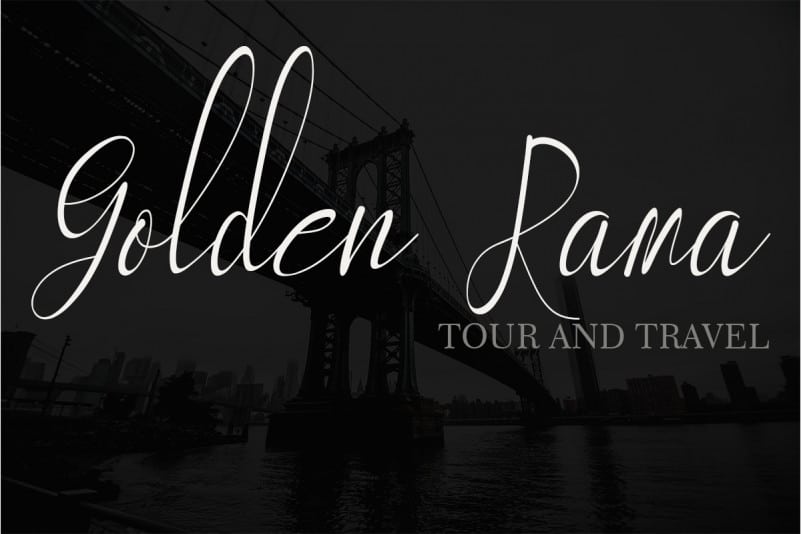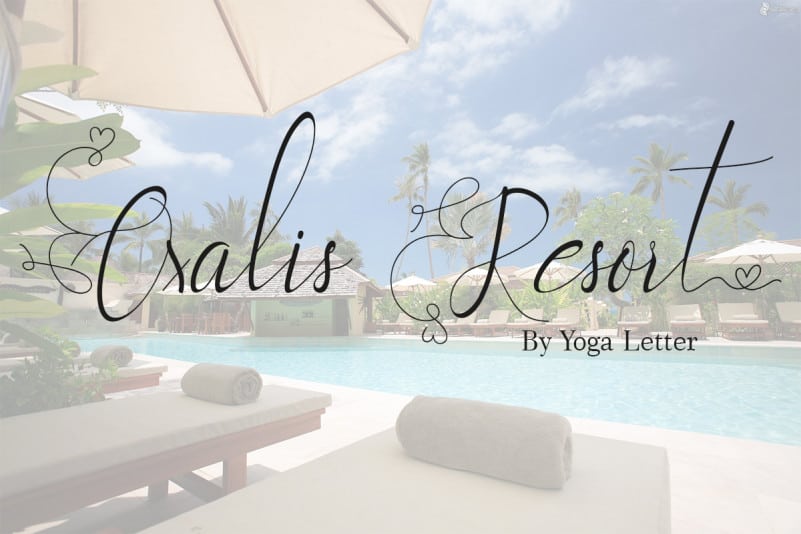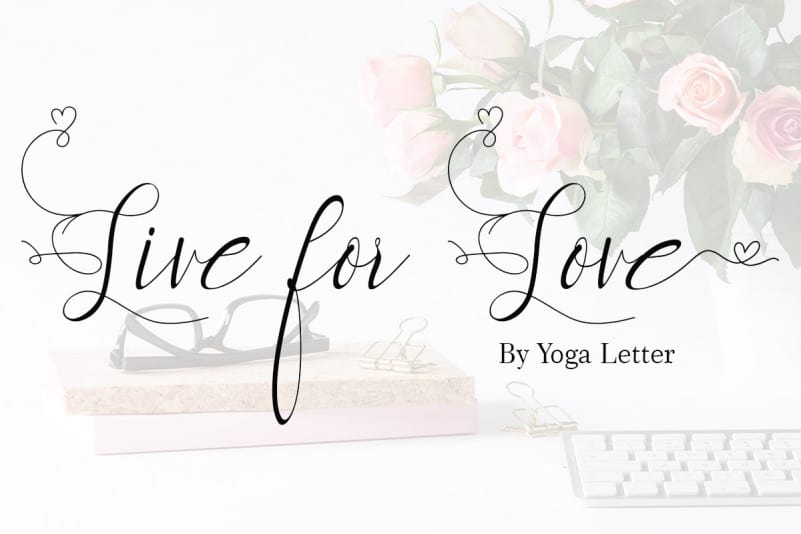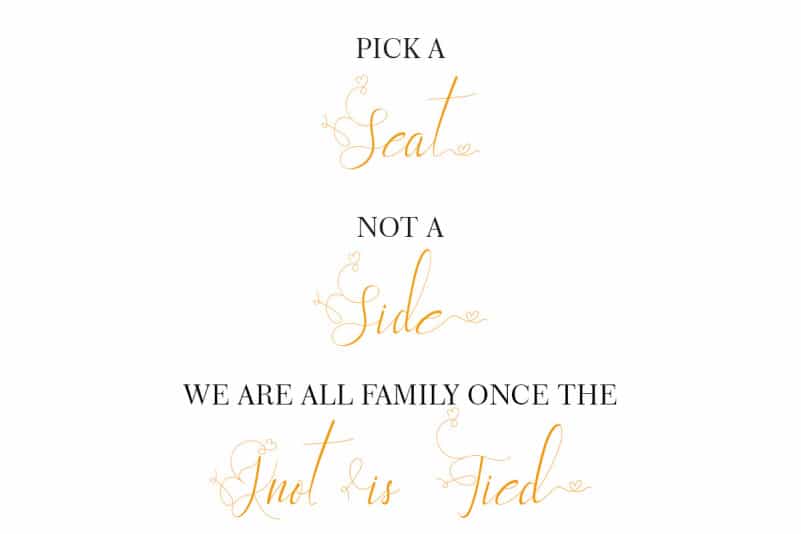
Betharia Calligraphy Font
Betharia Calligraphy Font is a modern handwritten font. This font is very beautiful and elegant. This font is made with love and affection. Besides being elegant and beautiful, this font is also very unique and can enhance your work. It is suitable for wedding designs, be it branding, headings, invitations, labels, logos, promotion of your product / business, beautify your vacation moments, to make status on social media, and others.